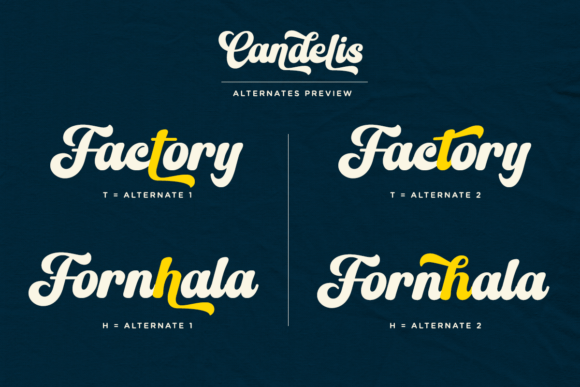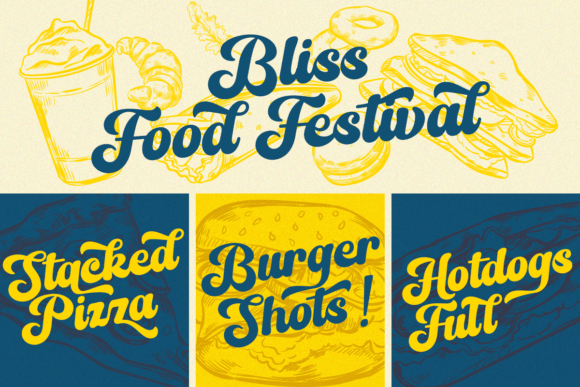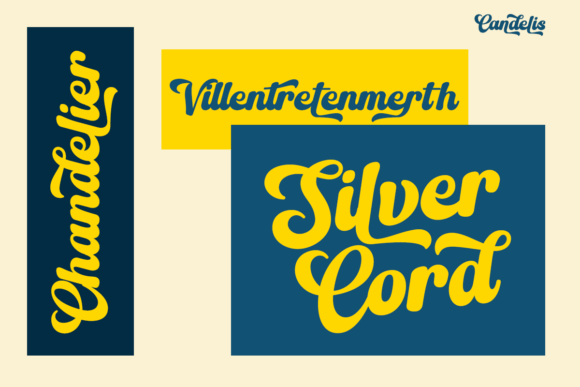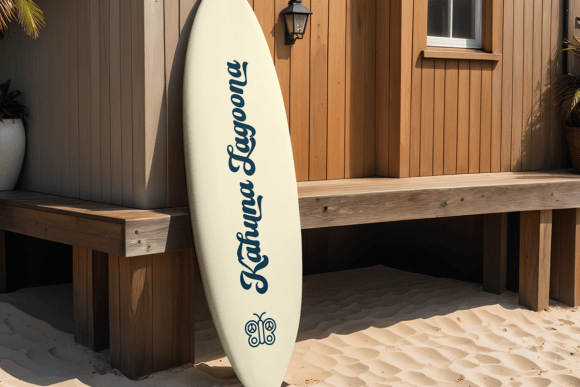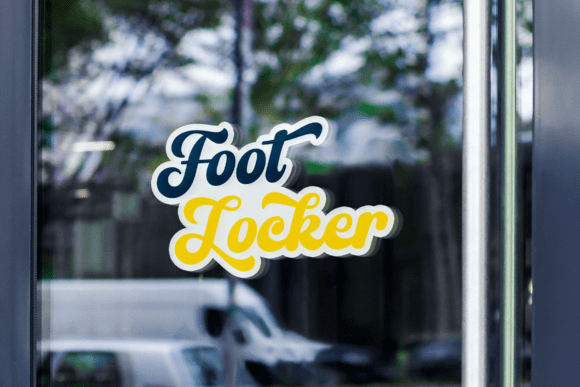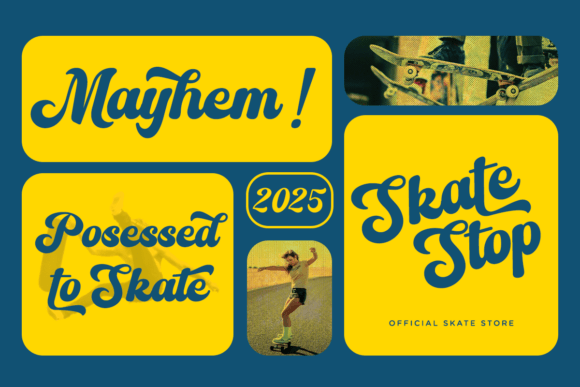
Candelis Font: Elevate Your Designs with Elegance and Boldness
Candelis is an elegant and bold script font that has captured the hearts of designers and crafters alike. Its incredibly versatile style makes it the perfect choice for creating stunning wedding invitations, beautiful stationary art, eye-catching social media posts, and much more. In this article, we’ll dive into the world of Candelis Font, exploring its features, uses, and benefits, as well as provide tips and inspiration for incorporating it into your designs.
The Elegance of Candelis Font
Candelis Font boasts an exquisite, hand-crafted design that exudes luxury and sophistication. Its elegant strokes, precise lettering, and flowing connections make it a true masterpiece. The font’s bold yet refined appearance allows it to command attention while maintaining a sense of poise and refinement. Whether you’re designing wedding invitations, branding materials, or social media graphics, Candelis Font is sure to elevate your work to new heights.
One of the standout features of Candelis Font is its incredible versatility. This font can be used in a wide range of design applications, from formal and traditional to modern and trendy. Here are just a few examples of how you can use Candelis Font:
- Wedding Invitations: Create stunning wedding invitations, save-the-date cards, and ceremony programs that set the tone for a luxurious and unforgettable celebration.
- Stationary Art: Design beautiful stationery, including letterheads, greeting cards, and journals, that showcase your brand’s personality and style.
- Social Media Posts: Craft eye-catching social media graphics, including Facebook posts, Instagram stories, and Twitter headers, that grab attention and drive engagement.
- Branding and Packaging: Use Candelis Font to create elegant and sophisticated branding materials, such as logos, business cards, and product packaging.
Tips for Working with Candelis Font
To get the most out of Candelis Font, here are a few tips to keep in mind:
- Pair it with contrasting fonts: Combine Candelis Font with simpler, sans-serif fonts to create visual interest and hierarchy in your designs.
- Experiment with colors: Try pairing Candelis Font with a range of colors, from metallic gold and silver to rich jewel tones, to add depth and luxury to your designs.
- Play with sizes: Use Candelis Font in a range of sizes to create visual interest and emphasis in your designs.
Still looking for inspiration? Here are a few ideas to get you started:
- Wedding Monograms: Use Candelis Font to create beautiful wedding monograms that combine the bride and groom’s initials in a elegant and sophisticated way.
- Quote Art: Design stunning quote art featuring Candelis Font, perfect for sharing on social media or displaying in your home or office.
- Branding Suites: Create comprehensive branding suites featuring Candelis Font, including logos, business cards, letterheads, and more.
| Font Name | Candelis Font |
| Author | SayStudio |
Candelis Font is a truly exceptional script font that offers a unique blend of elegance, boldness, and versatility. Whether you’re a designer, crafter, or DIY enthusiast, this font is sure to become a favorite in your collection. With its wide range of uses, tips, and inspiration, Candelis Font is the perfect choice for anyone looking to elevate their designs and create something truly special.